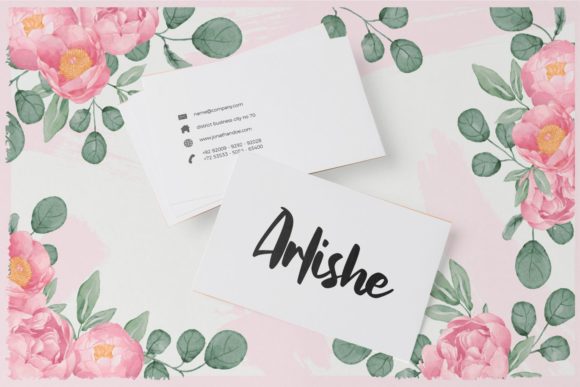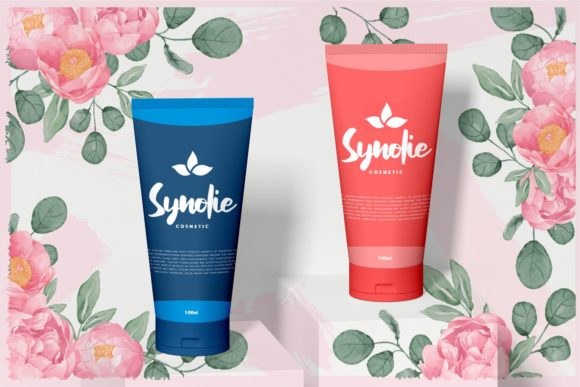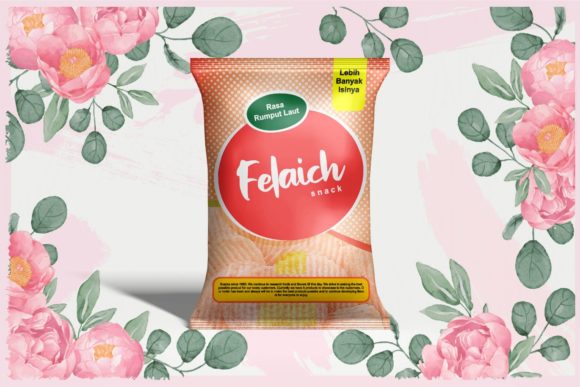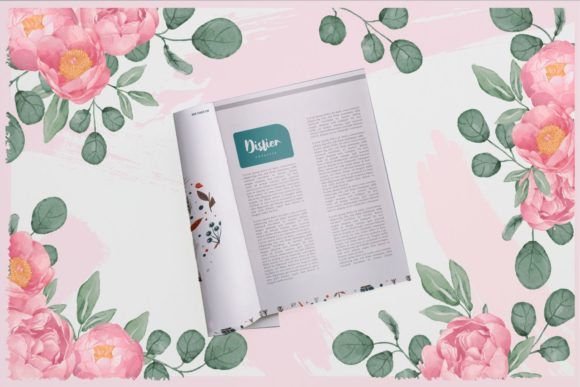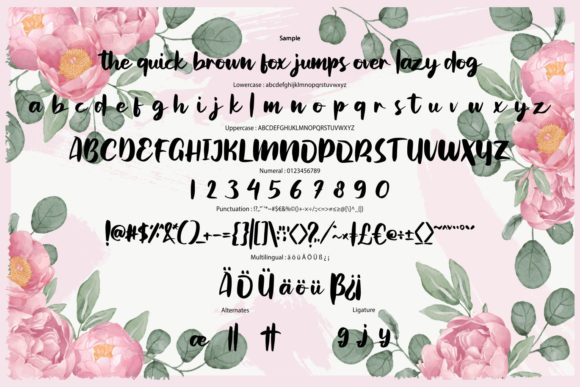
Halisel Font
About Halisel Font
Halisel is a cute and charming handwritten font that features thick, bold letterforms. With its playful and authentic style, Halisel brings a sense of joy and lightheartedness to any design project, particularly those aimed at children or school-related activities. Whether you’re working on educational materials, children’s books, crafts, or any project that requires a youthful and energetic touch, Halisel is the perfect choice.
The font’s thick letterforms give it a distinct and friendly appearance. The rounded edges and smooth curves of each character add to its playful nature, creating a warm and inviting atmosphere. Halisel’s thick strokes make it highly legible and suitable for headlines, titles, and other prominent text elements that need to catch the eye.
Designed with versatility in mind, Halisel is capable of enhancing a wide range of design concepts. Its charm and authenticity make it suitable for various applications beyond children’s projects. You can use Halisel to add a touch of whimsy and approachability to greeting cards, posters, packaging, social media graphics, and more. Its adaptability ensures that your designs will resonate with the intended audience and evoke a sense of delight.
When working with Halisel, consider exploring its potential for creativity. Experiment with mixing different letterforms and creating custom ligatures to add extra flair to your designs. Additionally, leverage the font’s compatibility with design software to resize, adjust spacing, and apply various effects to achieve the desired visual impact.
In summary, Halisel is a cute and charming handwritten font with thick, bold letterforms that exude playfulness and authenticity. Its versatility allows it to shine in various design projects, particularly those aimed at children or school-related activities. Let Halisel bring joy and a touch of whimsy to your creations, creating an engaging and memorable experience for your audience.